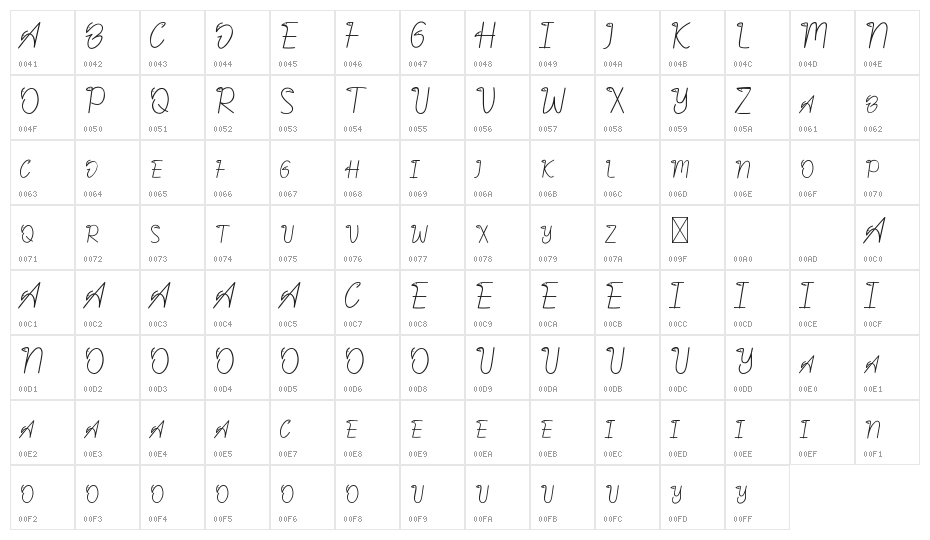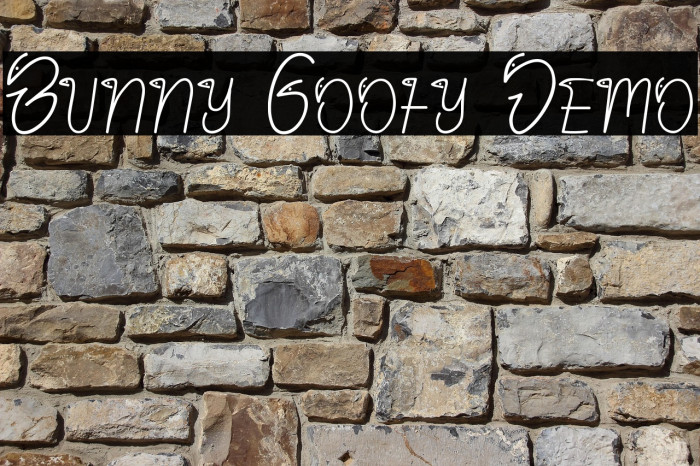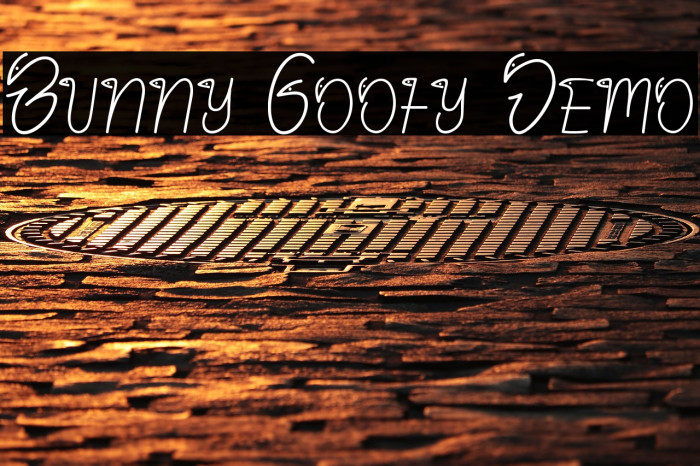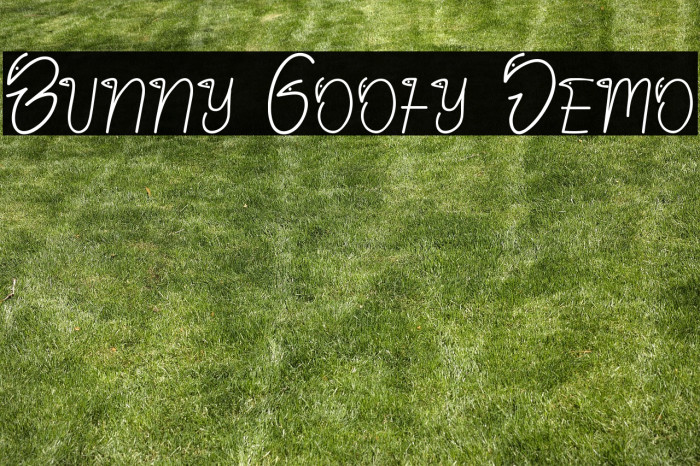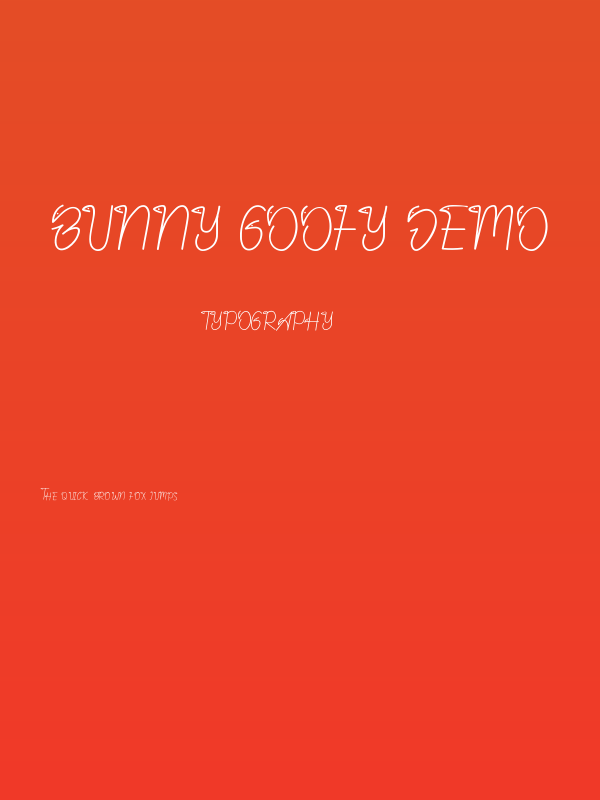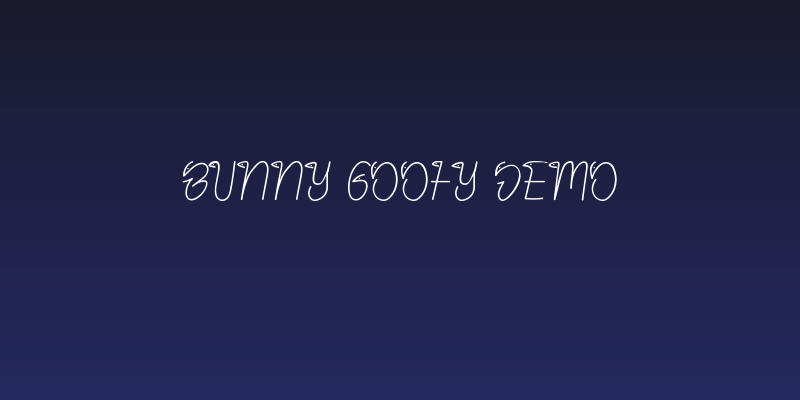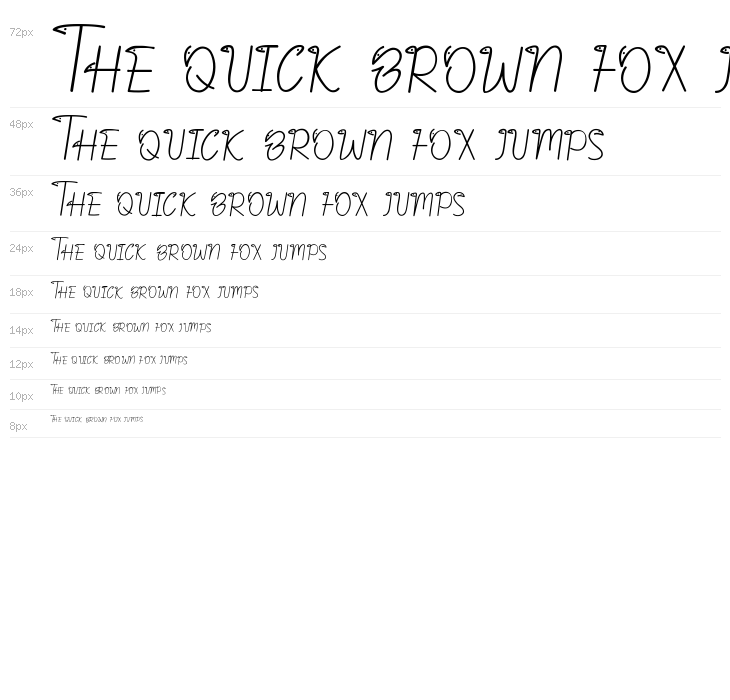
Bunny Goofy Demo Font
Bunny Goofy Demo Description
This playful and whimsical font features a unique design where each character is adorned with a small, eye-like detail, giving it a quirky and animated appearance. The letters are crafted with smooth, flowing lines that create a sense of movement and energy. The font maintains a consistent stroke width, contributing to its clean and legible look. Its distinctive style makes it stand out, perfect for projects that require a touch of fun and creativity. The uppercase and lowercase letters are well-balanced, and the numbers and special characters are designed to complement the overall aesthetic.
| Overall Style | Whimsical, Playful |
| Proposed Projects | Ideal for children's books, playful branding, greeting cards, and creative posters. |